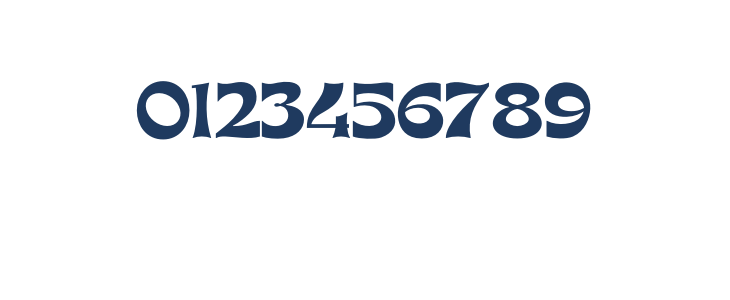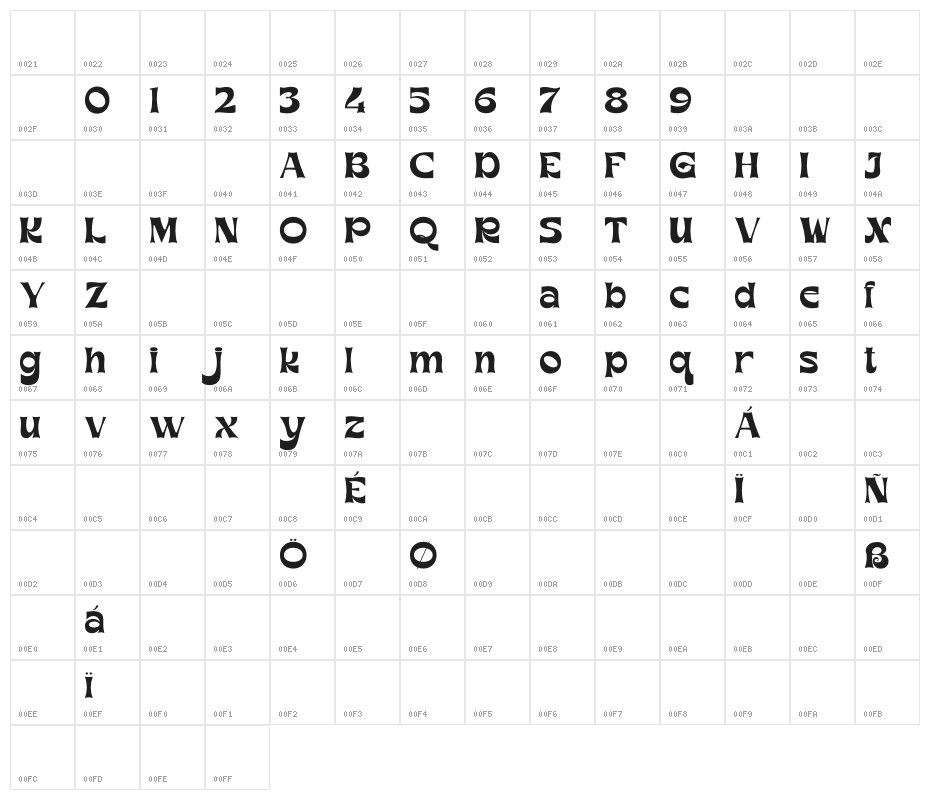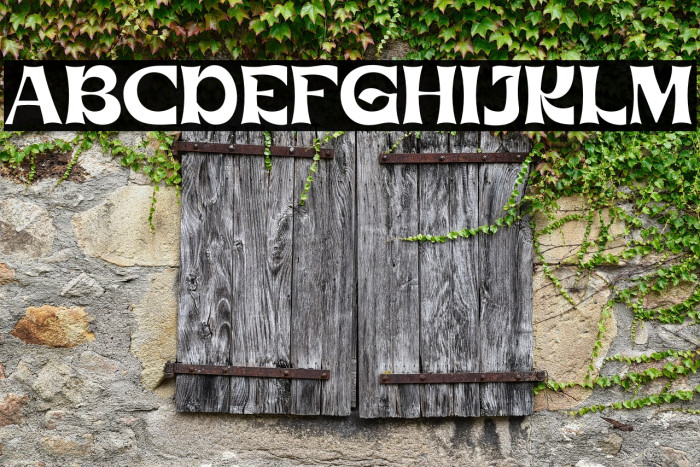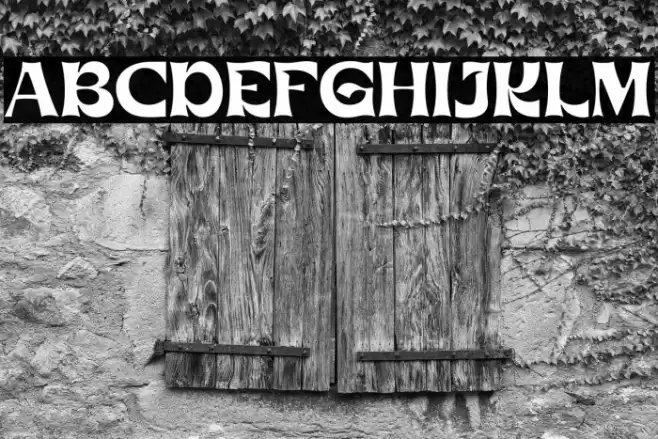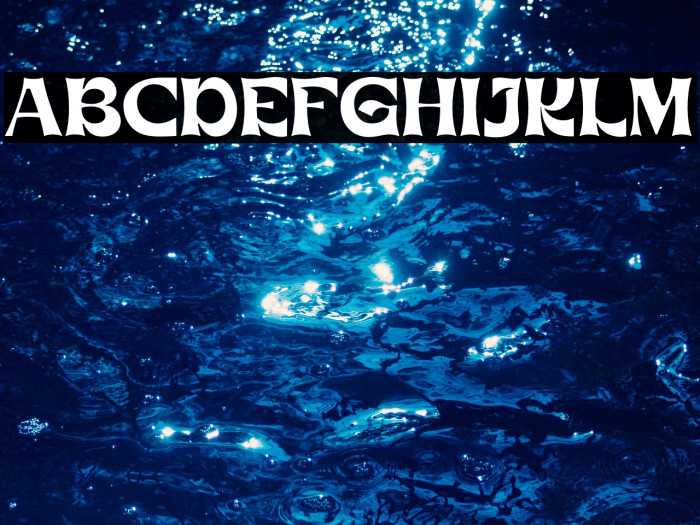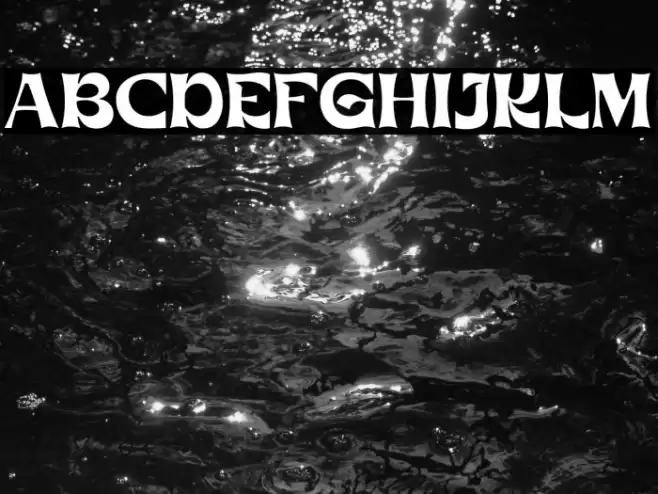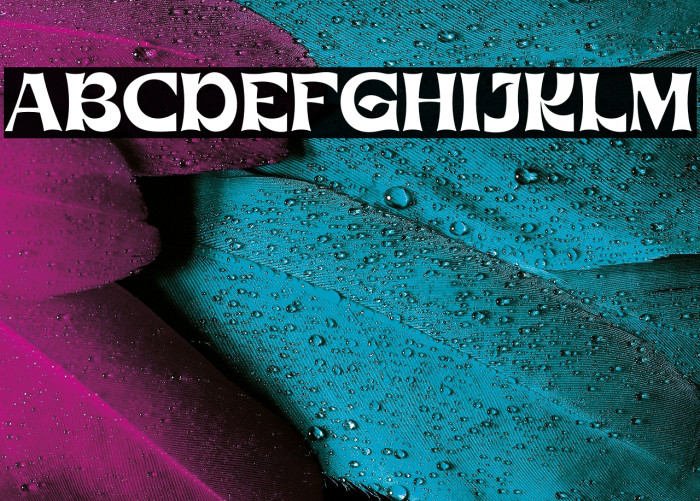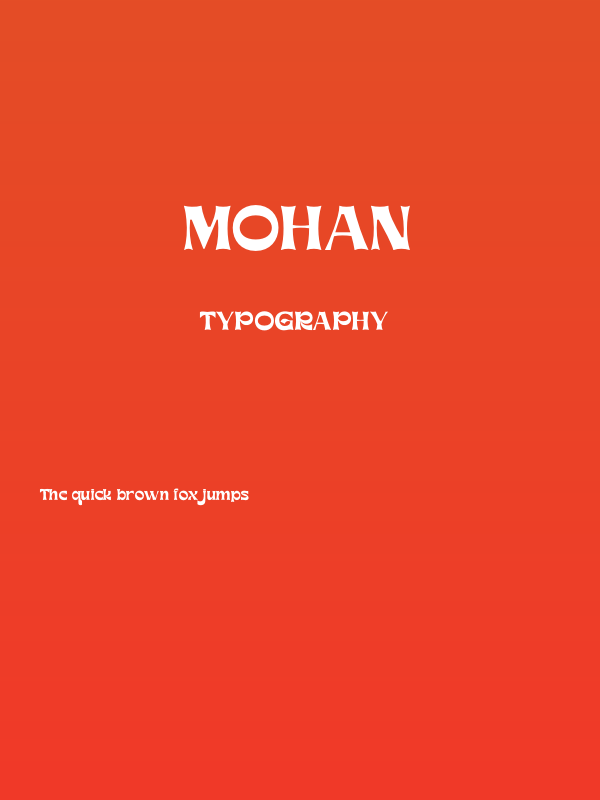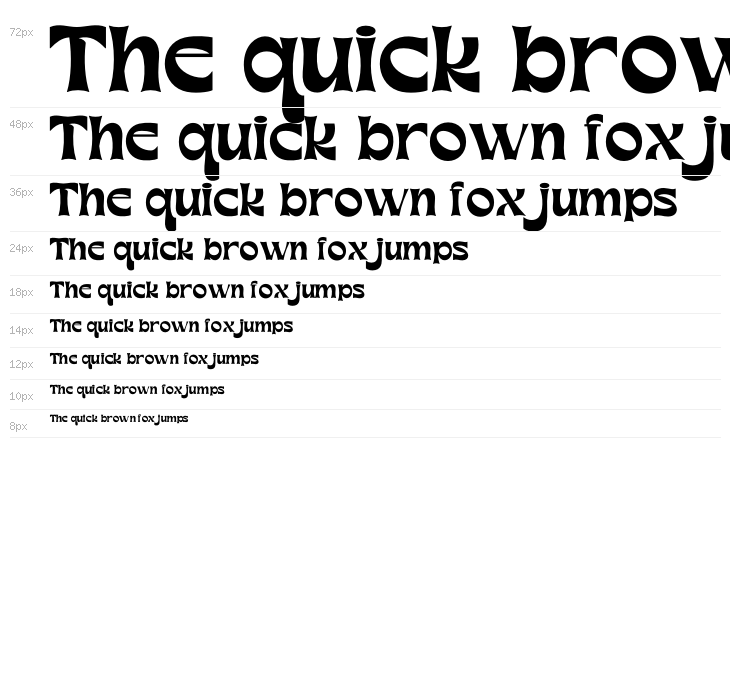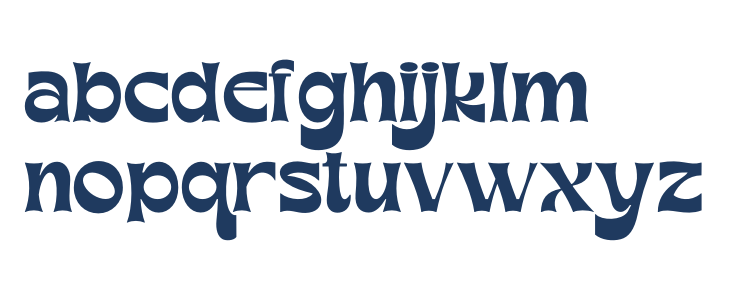
Mohan Font
This font features a bold and decorative style with unique, artistic elements that give it a distinctive appearance. The characters exhibit a playful yet structured form, with exaggerated curves and sharp edges that create a dynamic visual impact. The uppercase and lowercase letters maintain a consistent design language, while the numerals and special characters complement the overall aesthetic. The font's bold strokes and high contrast make it stand out, suitable for projects that require a strong visual presence.
| Proposed Projects | Ideal for posters, branding, headlines, and any project needing a bold, artistic touch. |